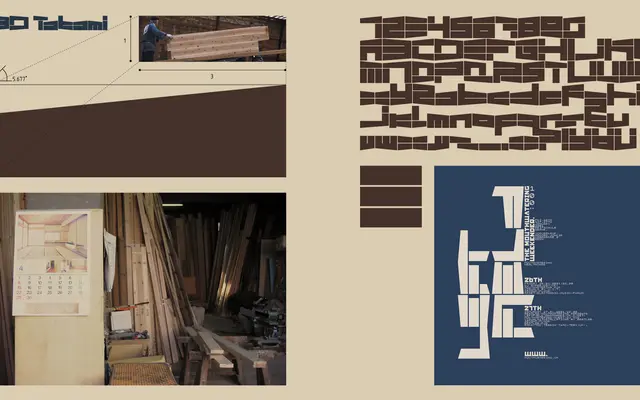
BD Tatami
A modular display typeface from 2001 inspired by Japanese woodcraft, built from blocky letterforms with slightly angled edges.
Drawn during a prolonged stay in Japan, BD Tatami takes its cues from traditional woodcraft joinery, rendering Latin letters as interlocking rectangular modules with subtly angled edges. The family consists of a single Regular weight covering very basic Latin, with readability deliberately secondary to its decorative, experimental character. Best suited to short-form display settings where its structural rhythm can be appreciated at large sizes.
A blocky, modular typeface with angled edges inspired by Japanese woodcraft. The geometric, experimental construction and overt decorative intent place it firmly in the display category.